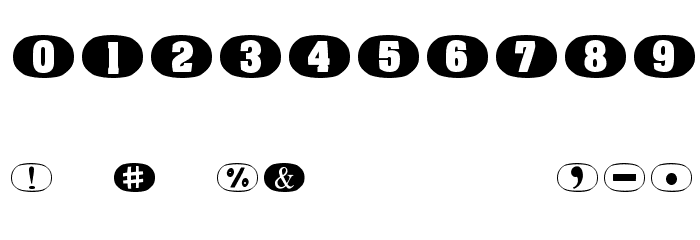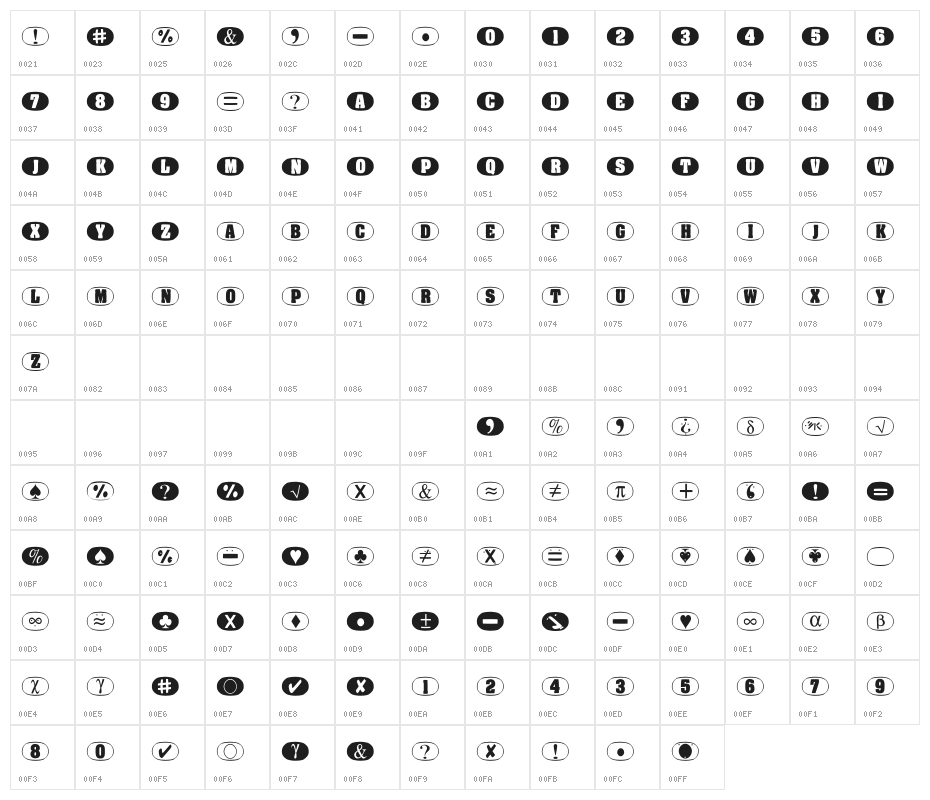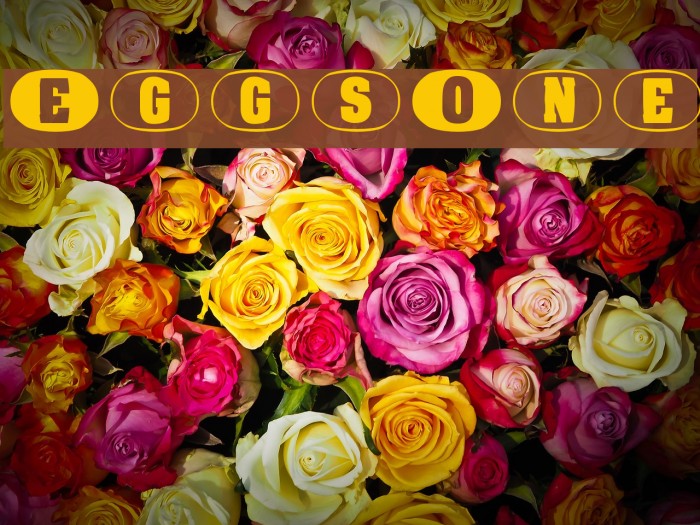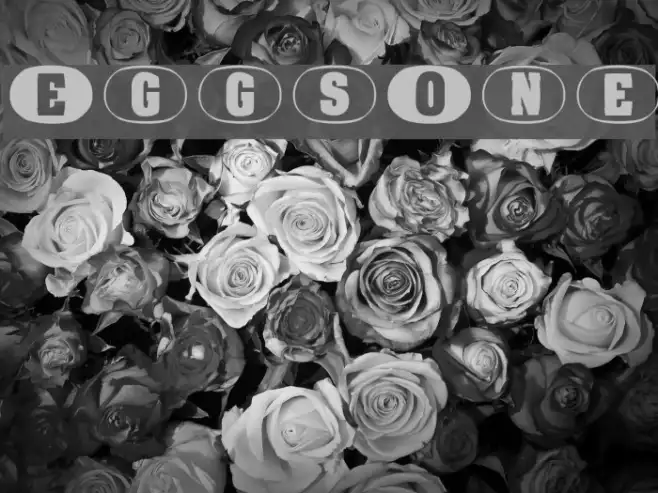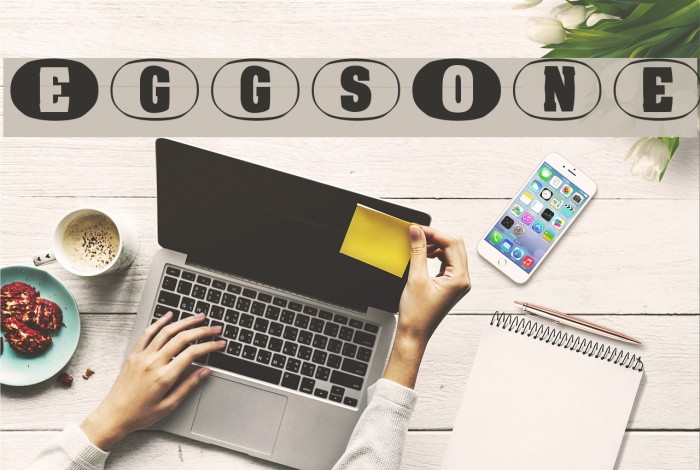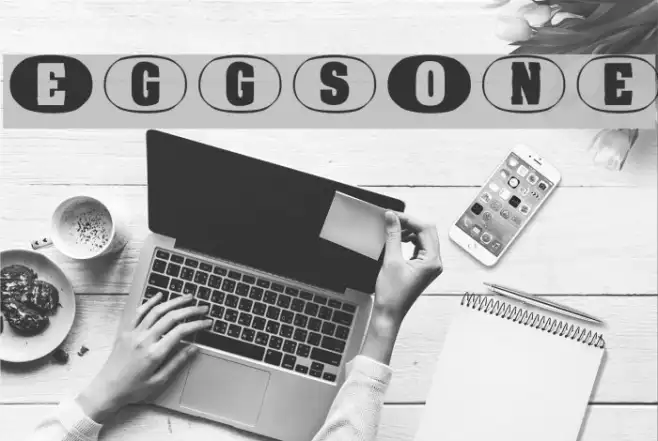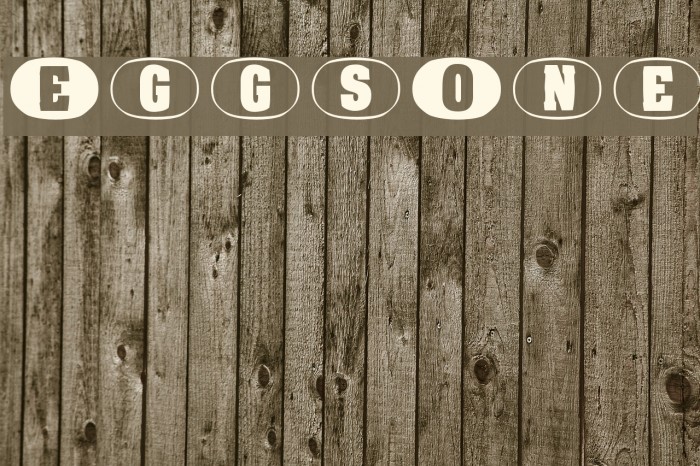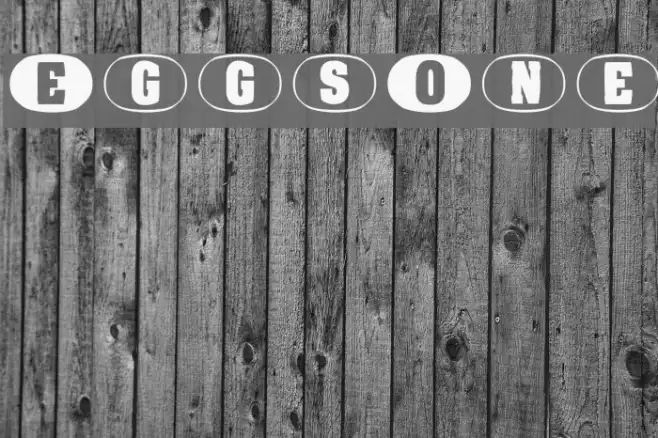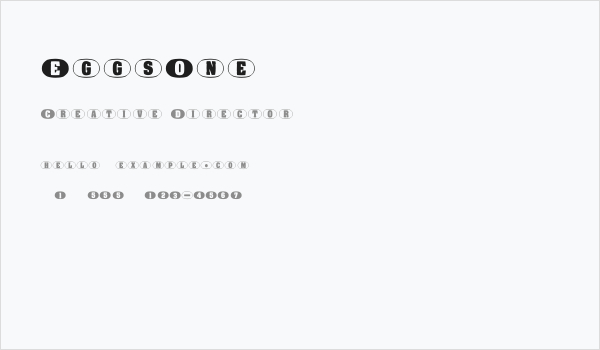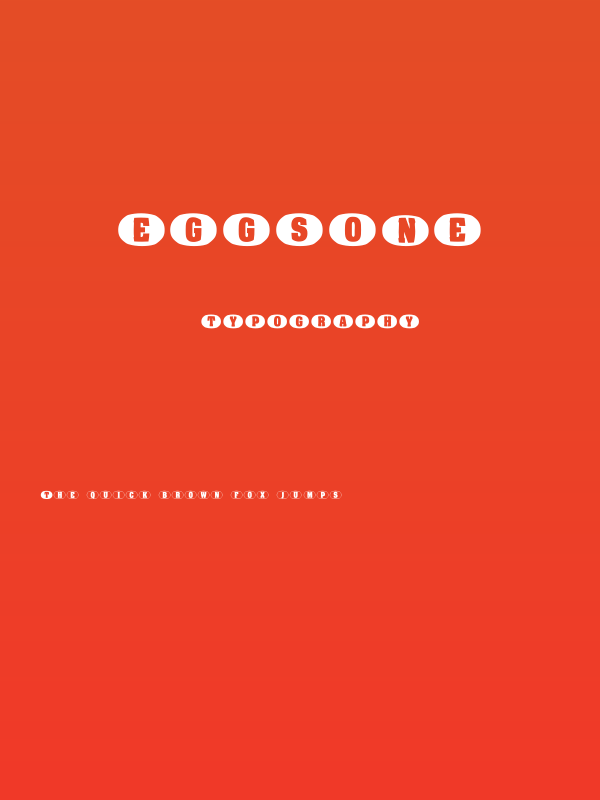
EggsOne Font
EggsOne Description
This font features a playful and bold design, with each character enclosed in an oval shape, reminiscent of eggs. The uppercase letters are prominently displayed with a strong presence, while the lowercase letters maintain a consistent style. The numbers and special characters follow the same design principle, ensuring uniformity across all elements. The font's unique style makes it stand out, with a blend of modern and decorative elements. Its bold appearance is suitable for eye-catching designs, and the enclosed characters add a distinctive touch to any project.